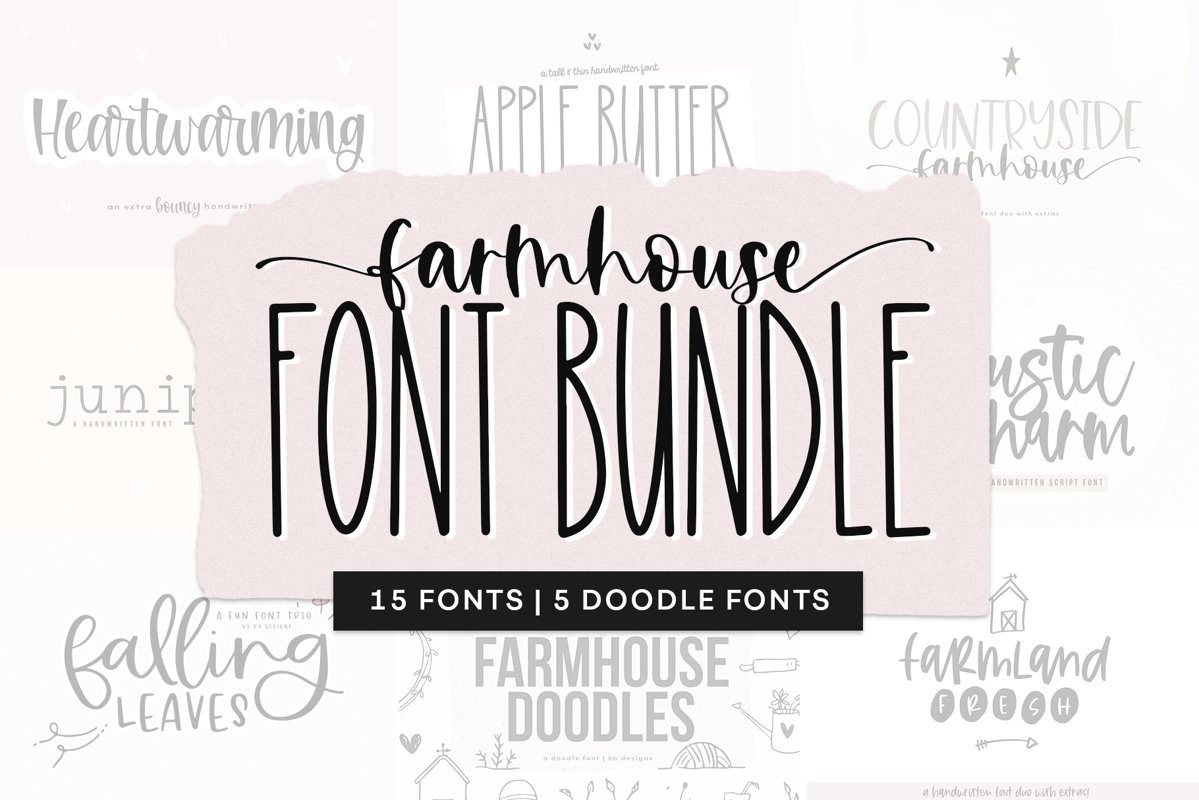
Farmhouse Handwritten Font Duo | 62 Style
Farmhouse Handwritten Font Duo 62 Styles !!!
Farmhouse Handwritten Font Duo A smooth, charming, perfectly paired font duo, that's ideal for quotes, social media, branding, packaging, overlays and more! Use this elegant combo on everything from logo design to Instagram quotes.
Farmhouse Handwritten Script - A signature font with lot's of ligatures for that handwritten feel
Farmhouse Handwritten - An all-caps font that complements the signature font perfectly
All fonts include lowercase, uppercase, numbers, punctuation & international characters.